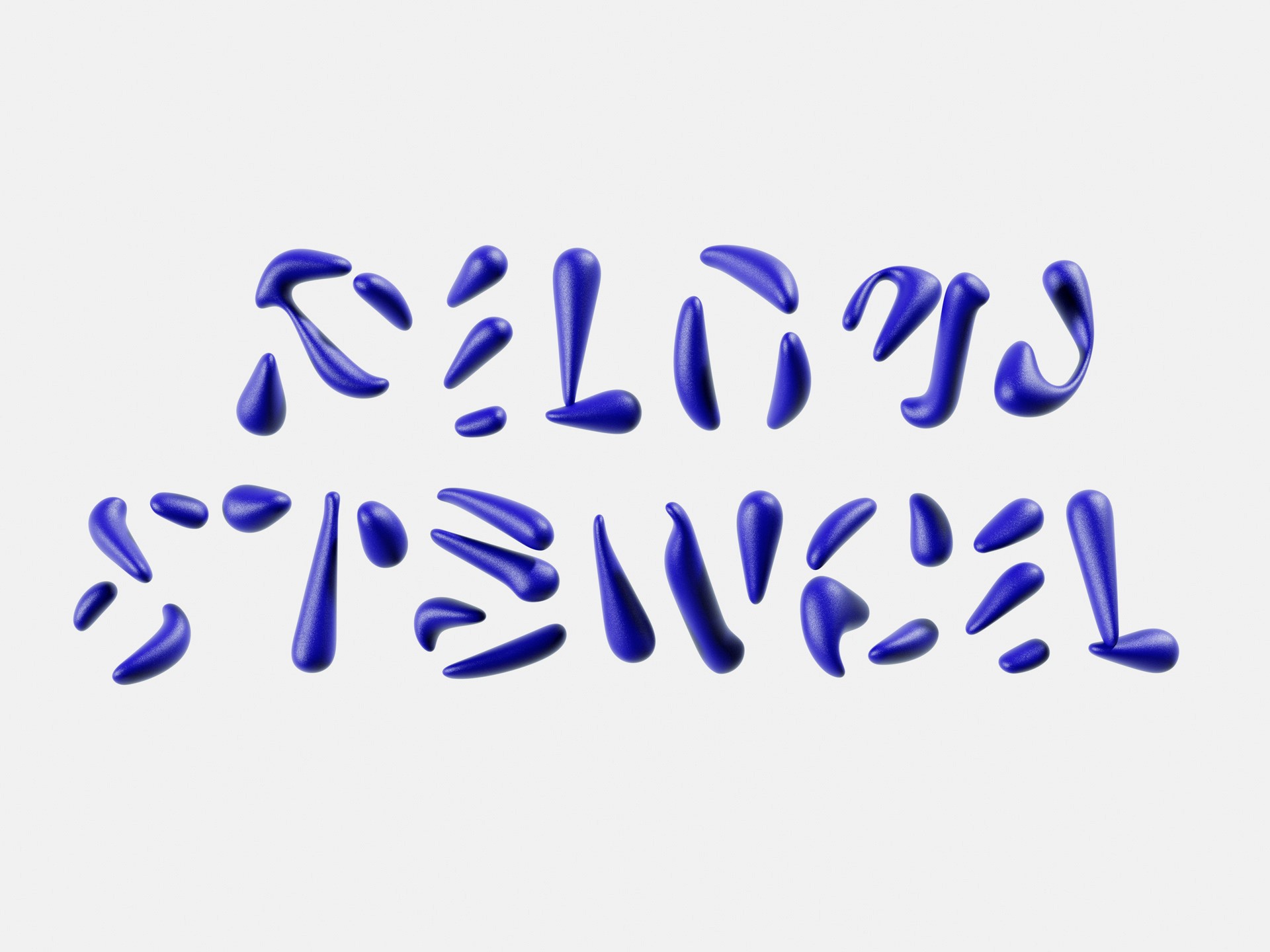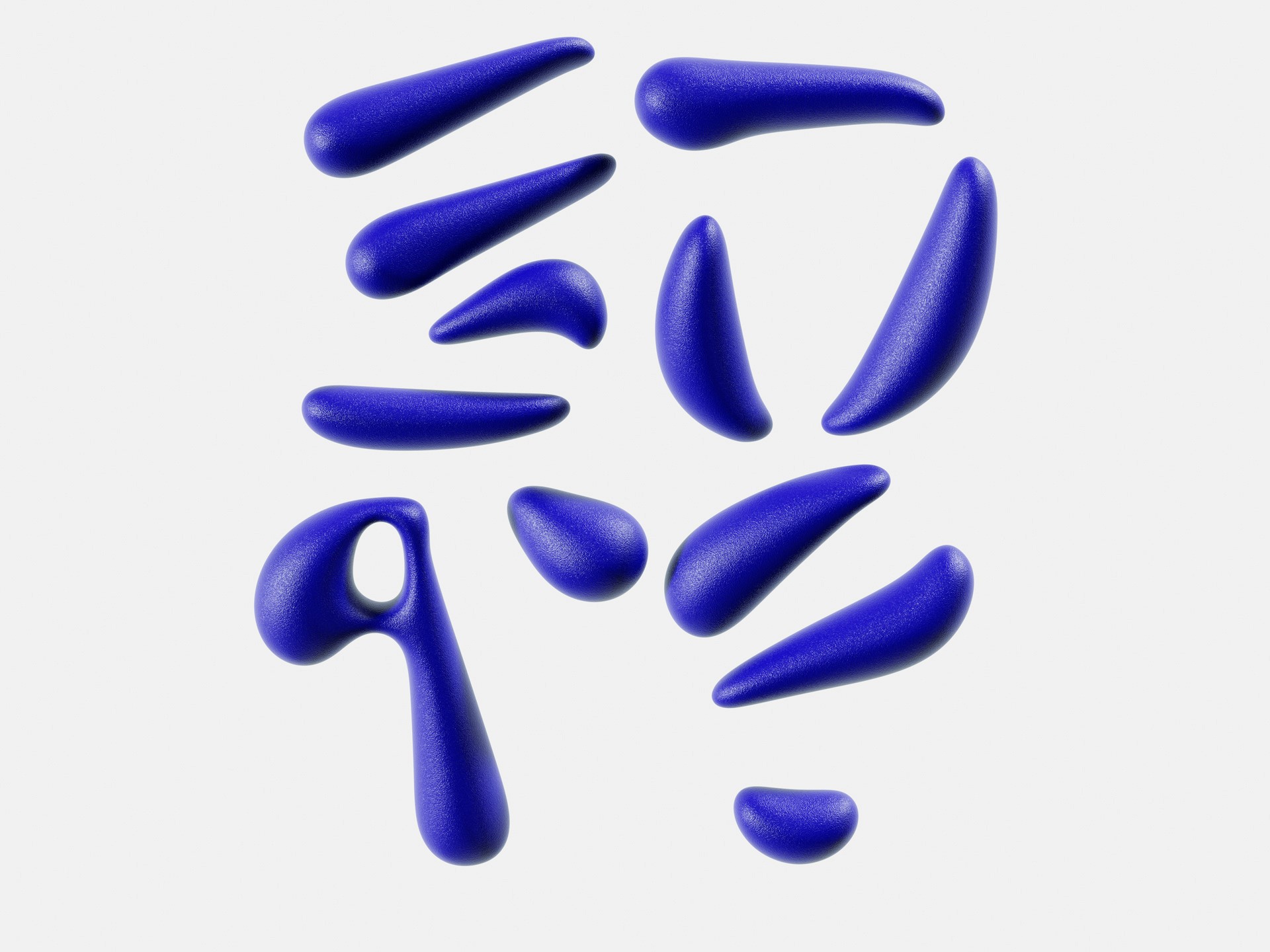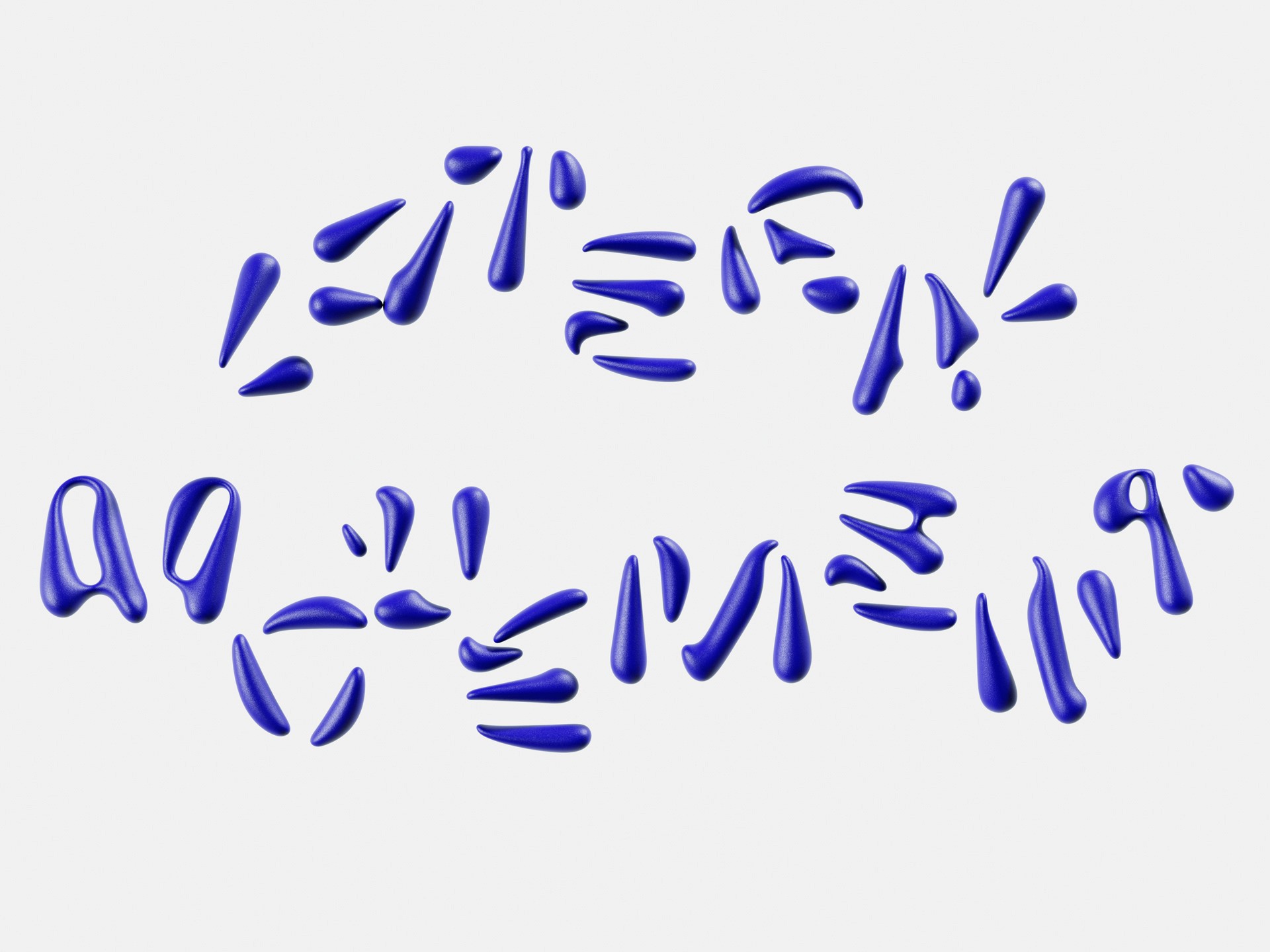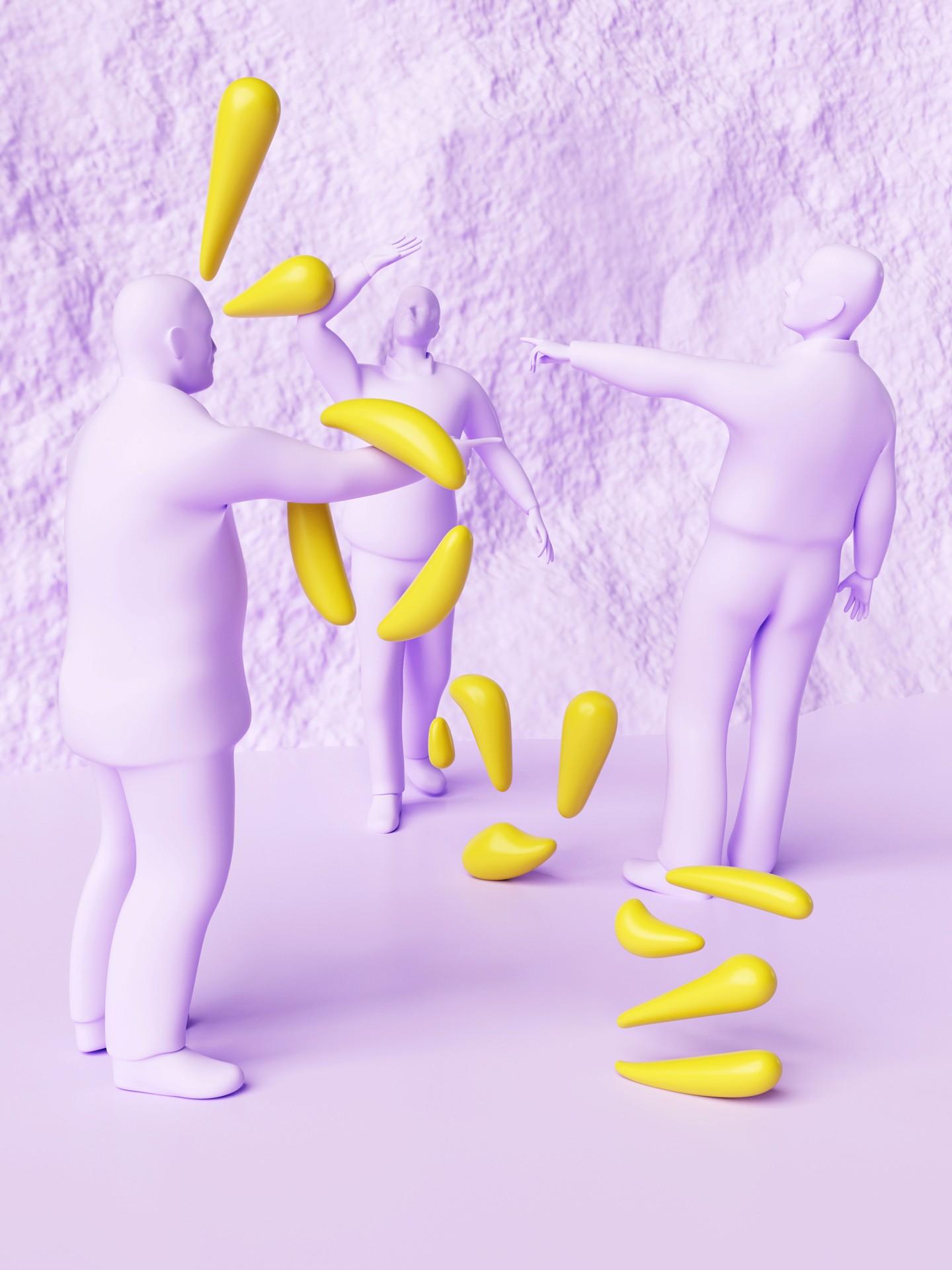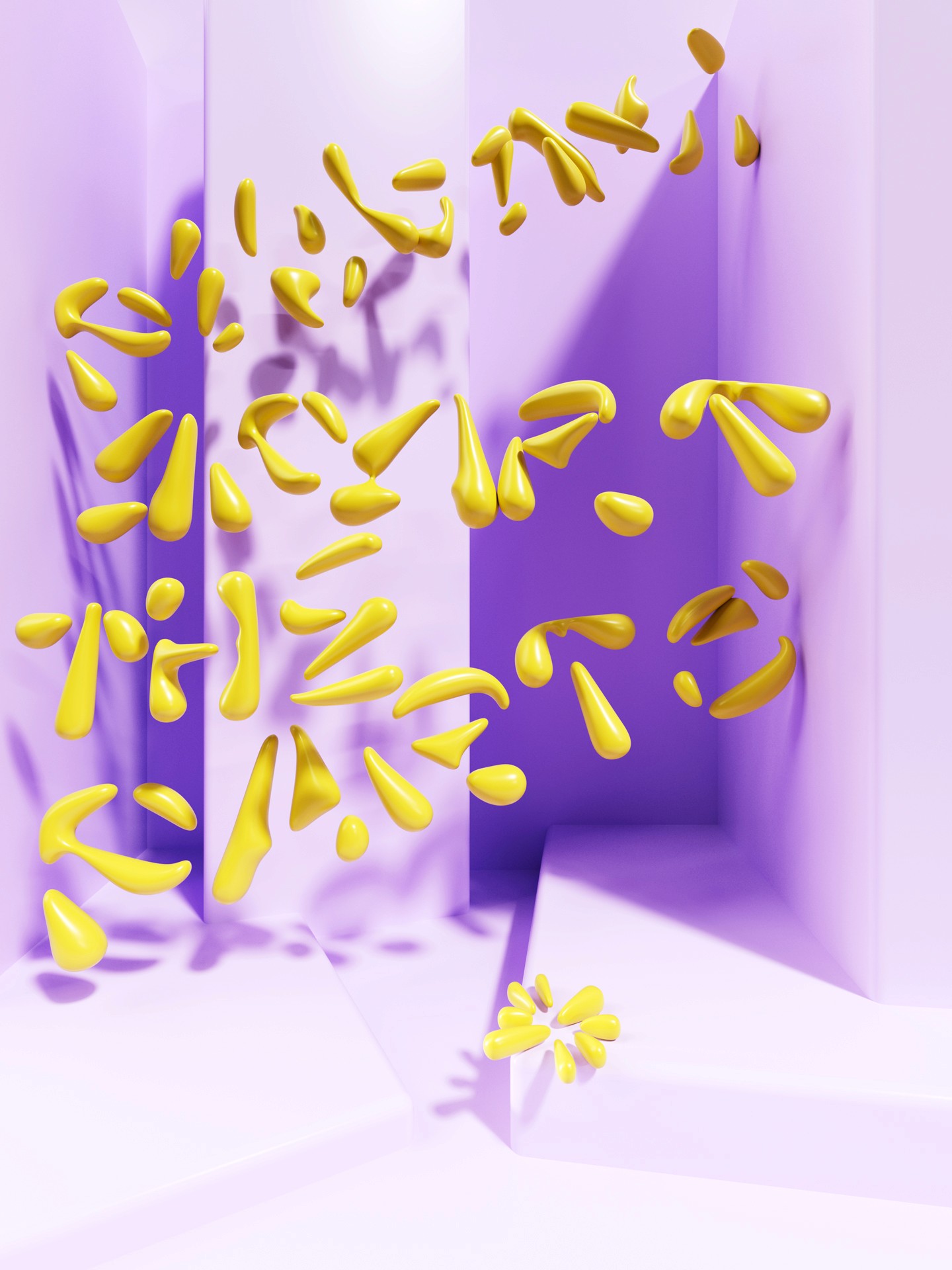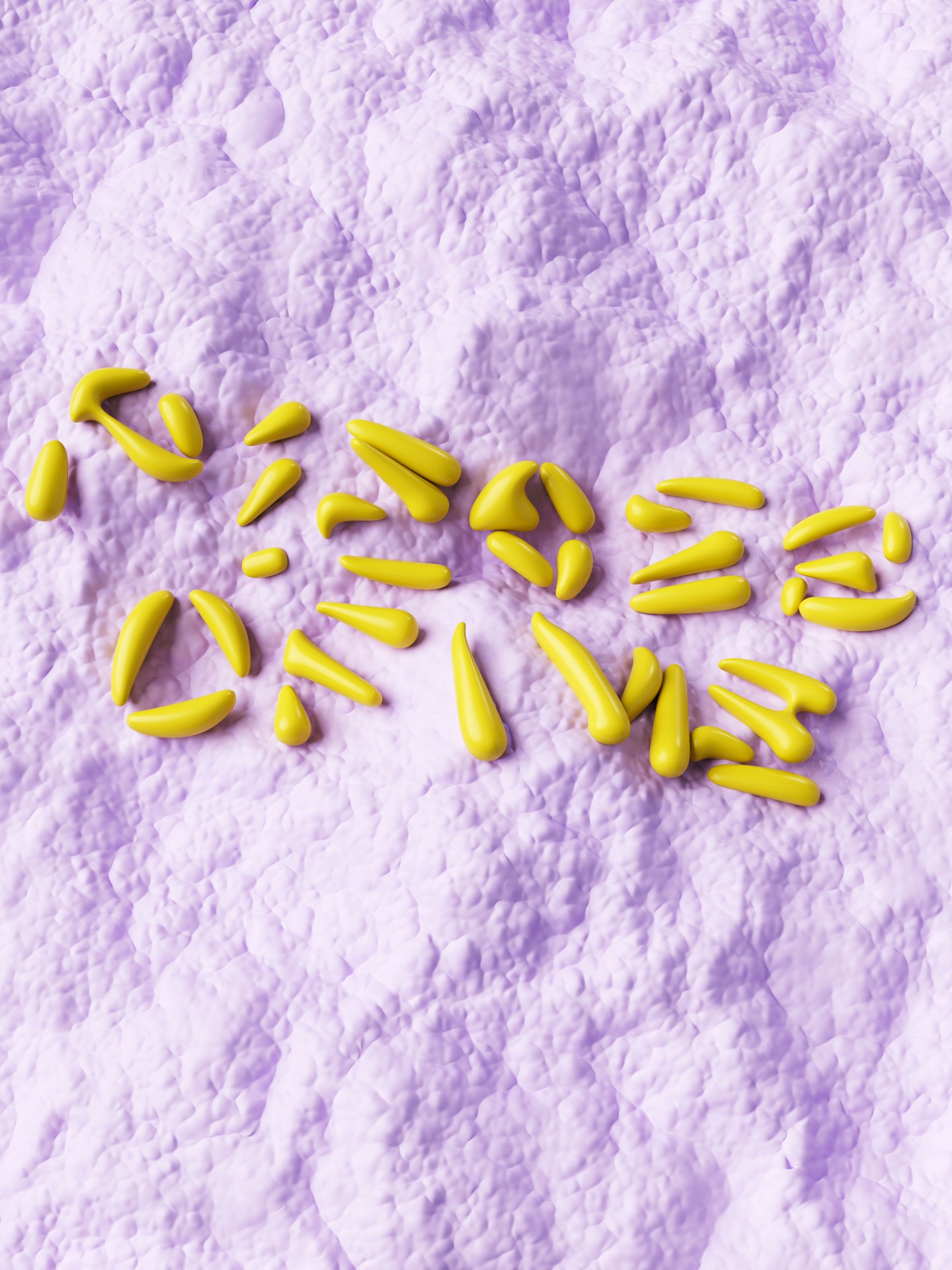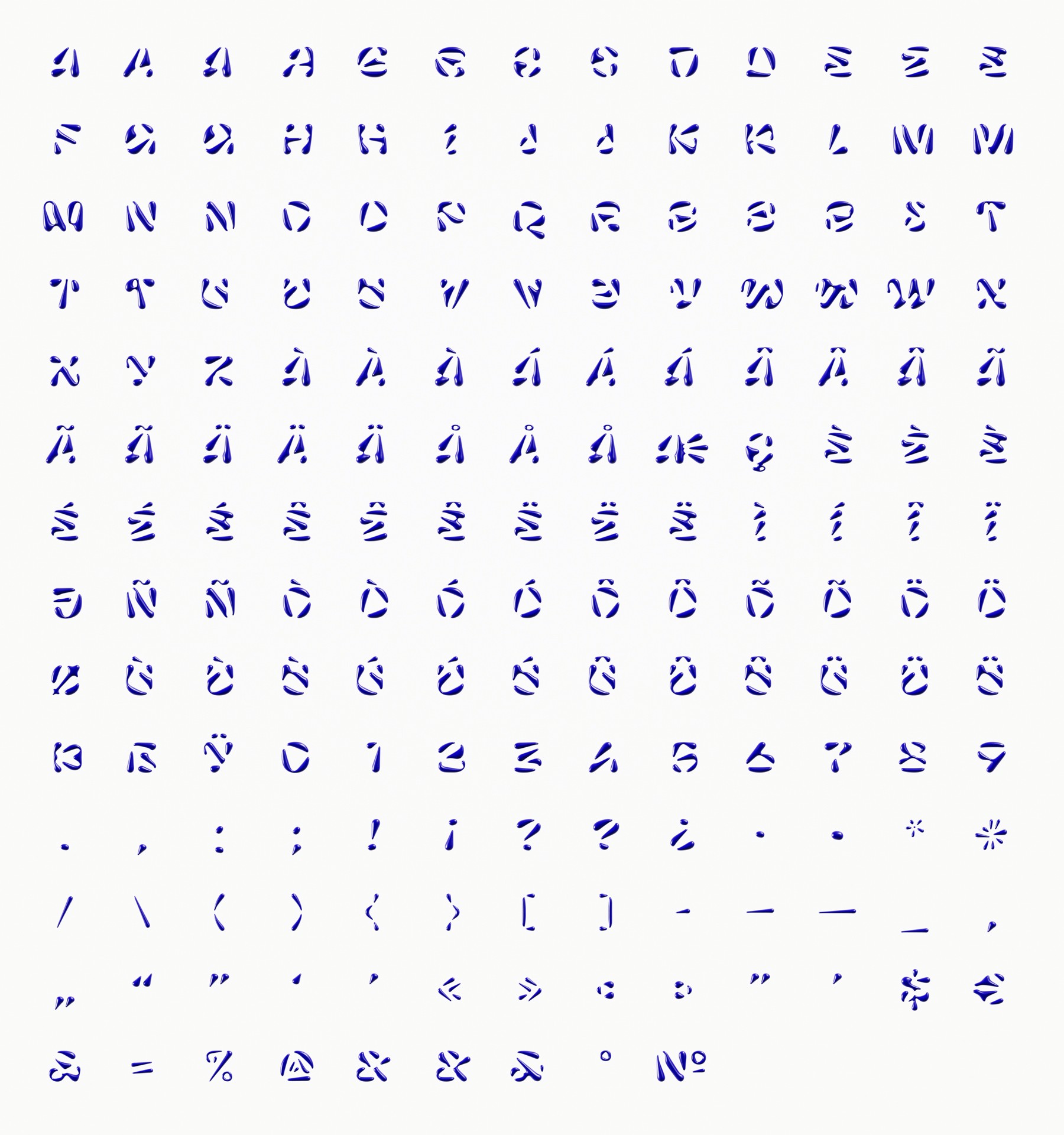
TC Pilowflow
TC Pilowflow is a continuation of my work on Pilowlava 3D / TC Pilowlava. Where Pilowlava’s organic forms are thinnest, TC Pilowflow splits the glyphs into separate parts, essentially turning it into a 3D stencil font.
The separation of letters into individual parts allows these forms to move and rotate in 3D space independently from one another, letting Pilowlava truly expand into the third dimension.
Design
Vincent Wagner
Pilowlava Designers
Jérémy Landes, Anton Moglia
Concept Support
Daniel Gremme